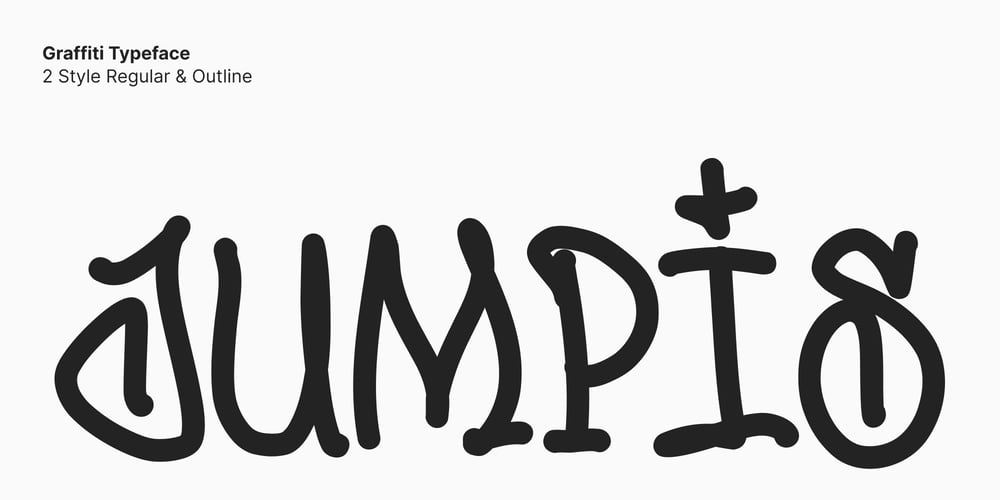
Jumpis Graffiti Font Family was designed by Moch Fitrah Hidayat and published by Fitrah Type. Jumpis Graffiti contains 2 styles and family package options. Jumpis is the newest typeface with a tagging graffiti style. The entire typography has been designed to work on large sizes. This font ideal for designing merchandise, social media, marketing posts, product packaging & branding projects. Jumpis supports uppercase, lowercase, numerals and punctuation.